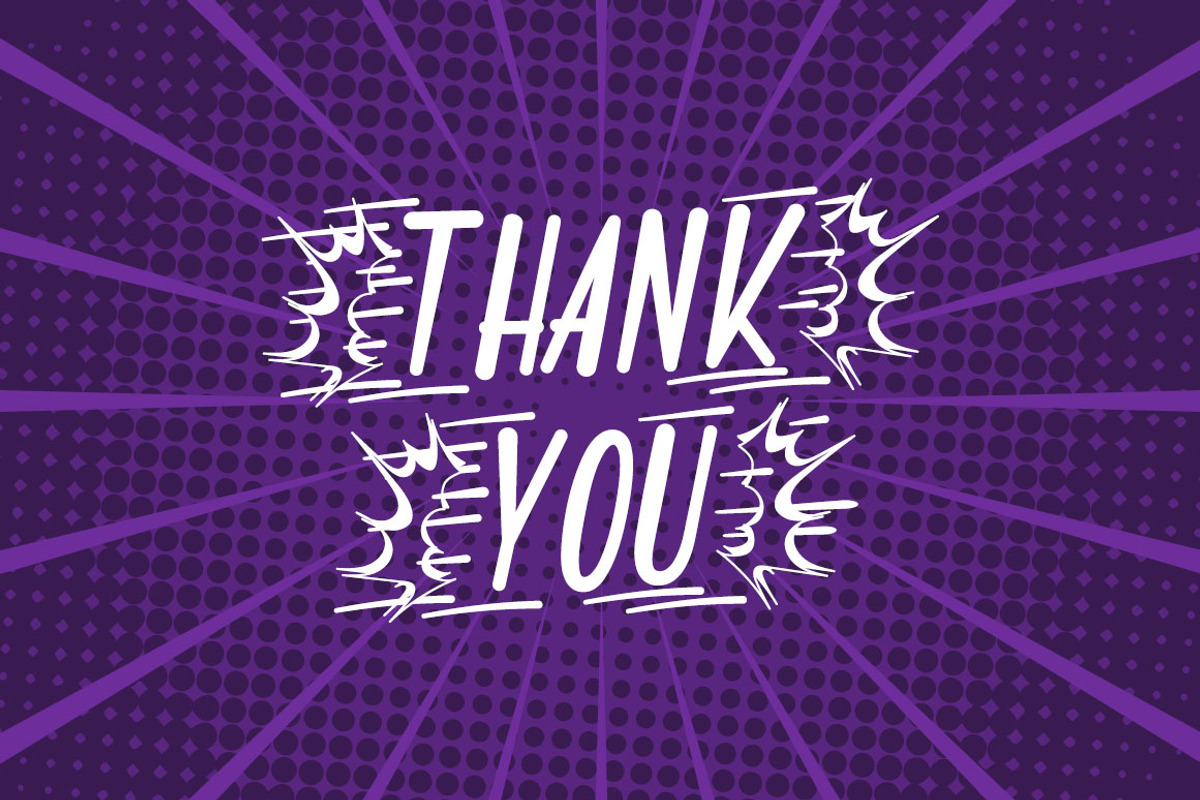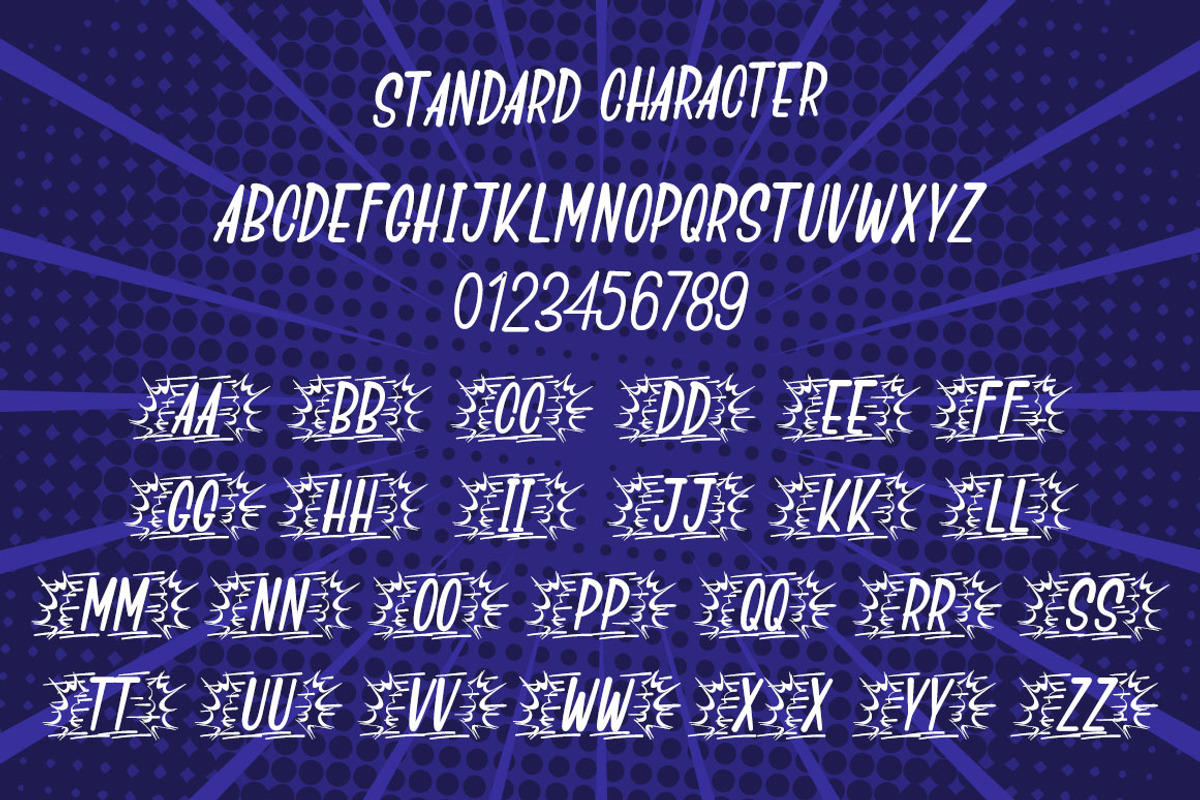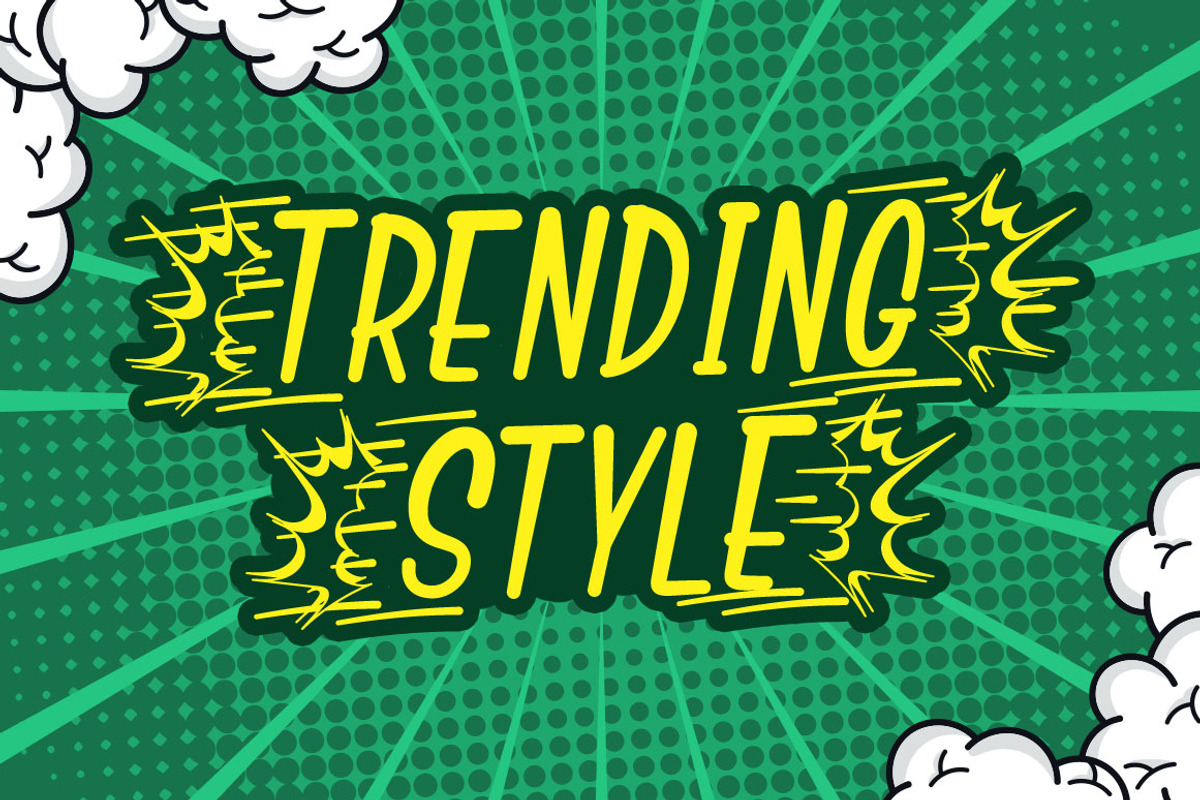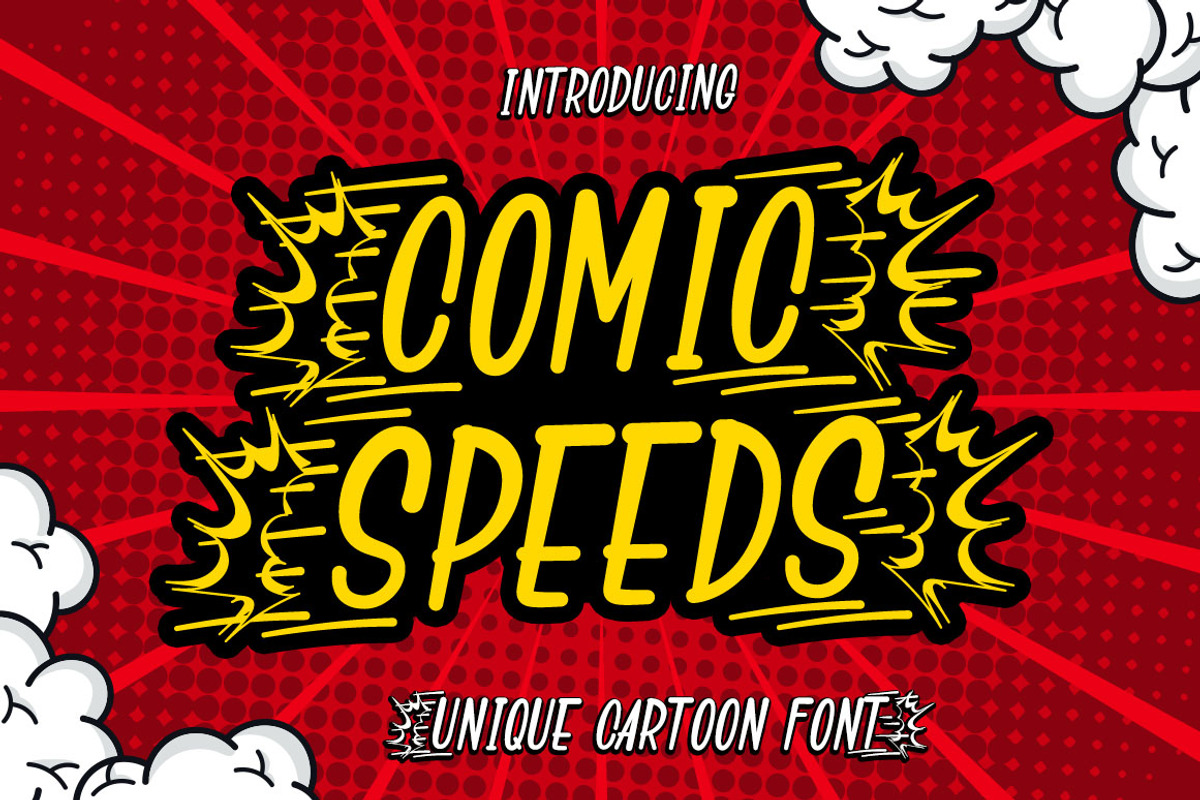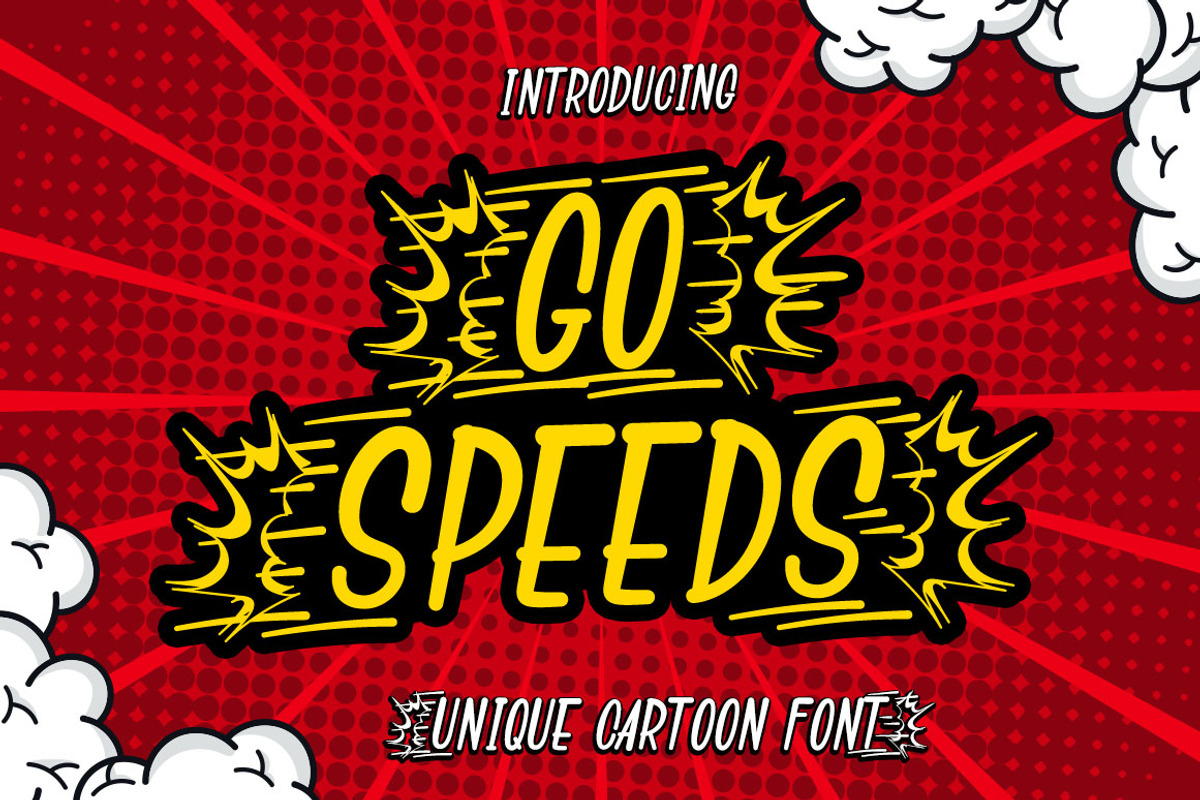
Comic Speeds - Cartoon Font
Introducing Comic Speeds Font. A playful and unique font. It has a unique and different style and will give your design a fun touch.
Comic Speeds would be perfect for logos & branding, photography, watermark, social media posts, advertisements, invitation, product designs, label, stationery, product packaging, special events or anything that need handwriting taste.